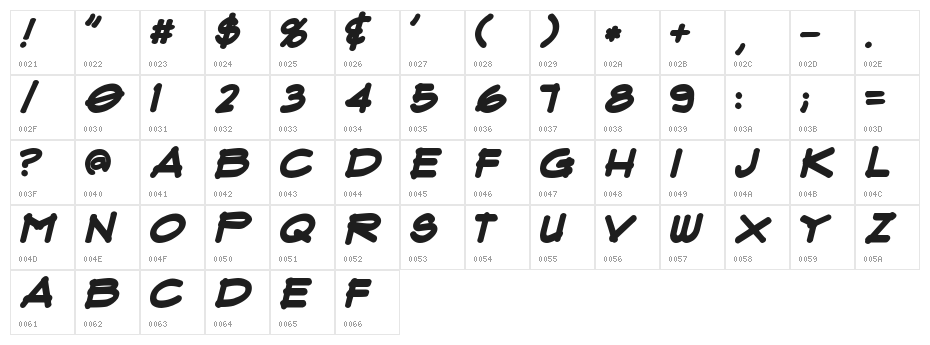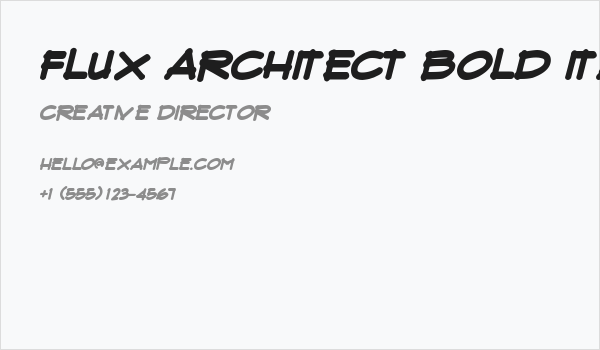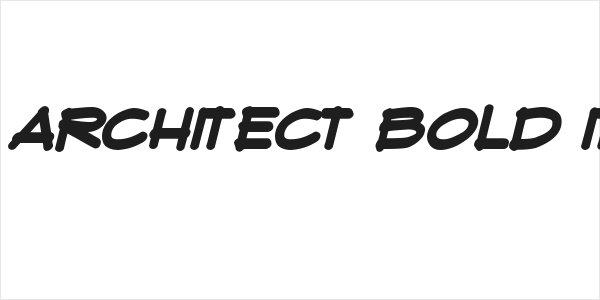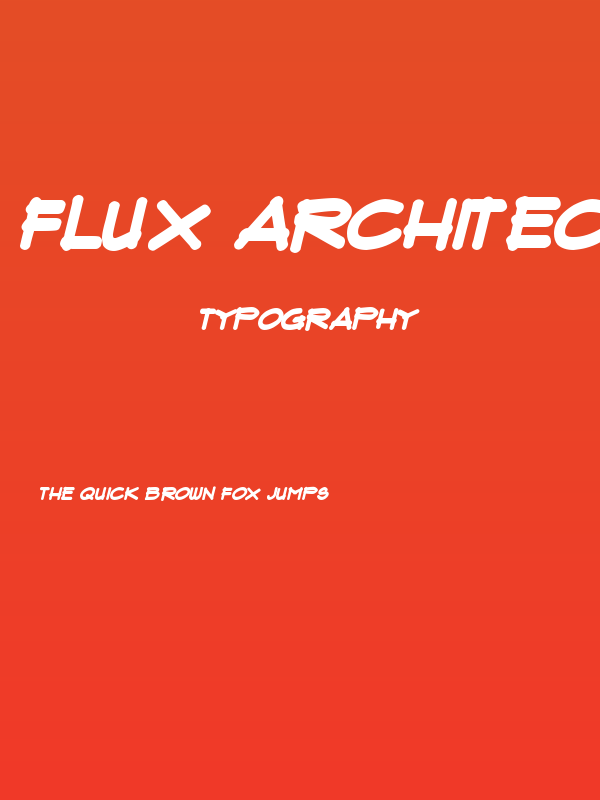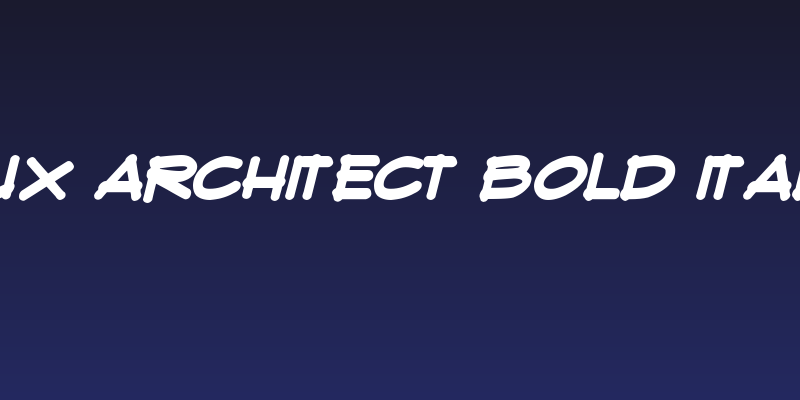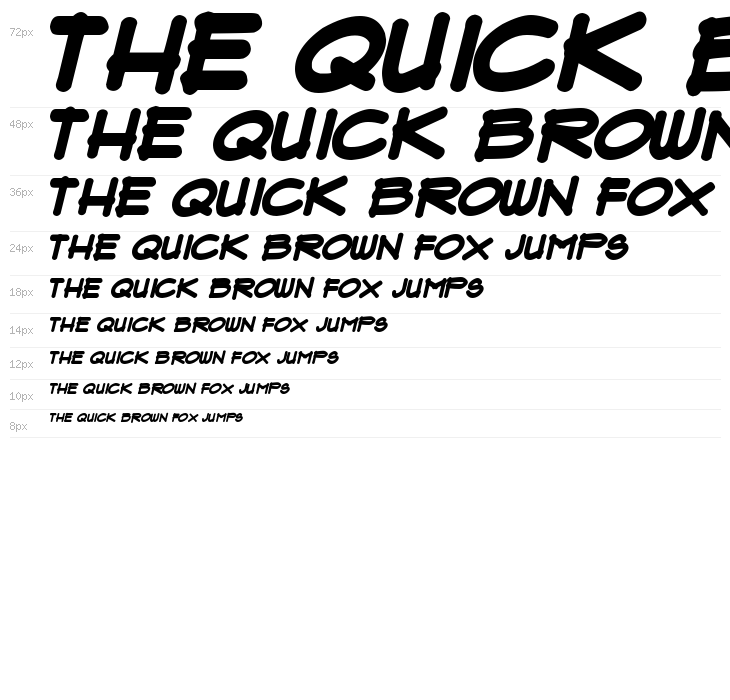
Flux Architect Bold Italic Font
Flux Architect Bold Italic Description
This font features a bold and italicized style with a dynamic and energetic appearance. The characters are thick and rounded, giving a sense of movement and fluidity. The strokes are consistent in weight, providing a cohesive look across all characters. The uppercase and lowercase letters maintain a uniform style, with a slight slant that enhances the italic effect. The numbers and special characters are designed to match the overall boldness and curvature of the alphabet, ensuring visual harmony throughout. This font is ideal for projects that require a strong and impactful presence.
Proposed ProjectsIdeal for branding, posters, headlines, and any design requiring a bold statement.